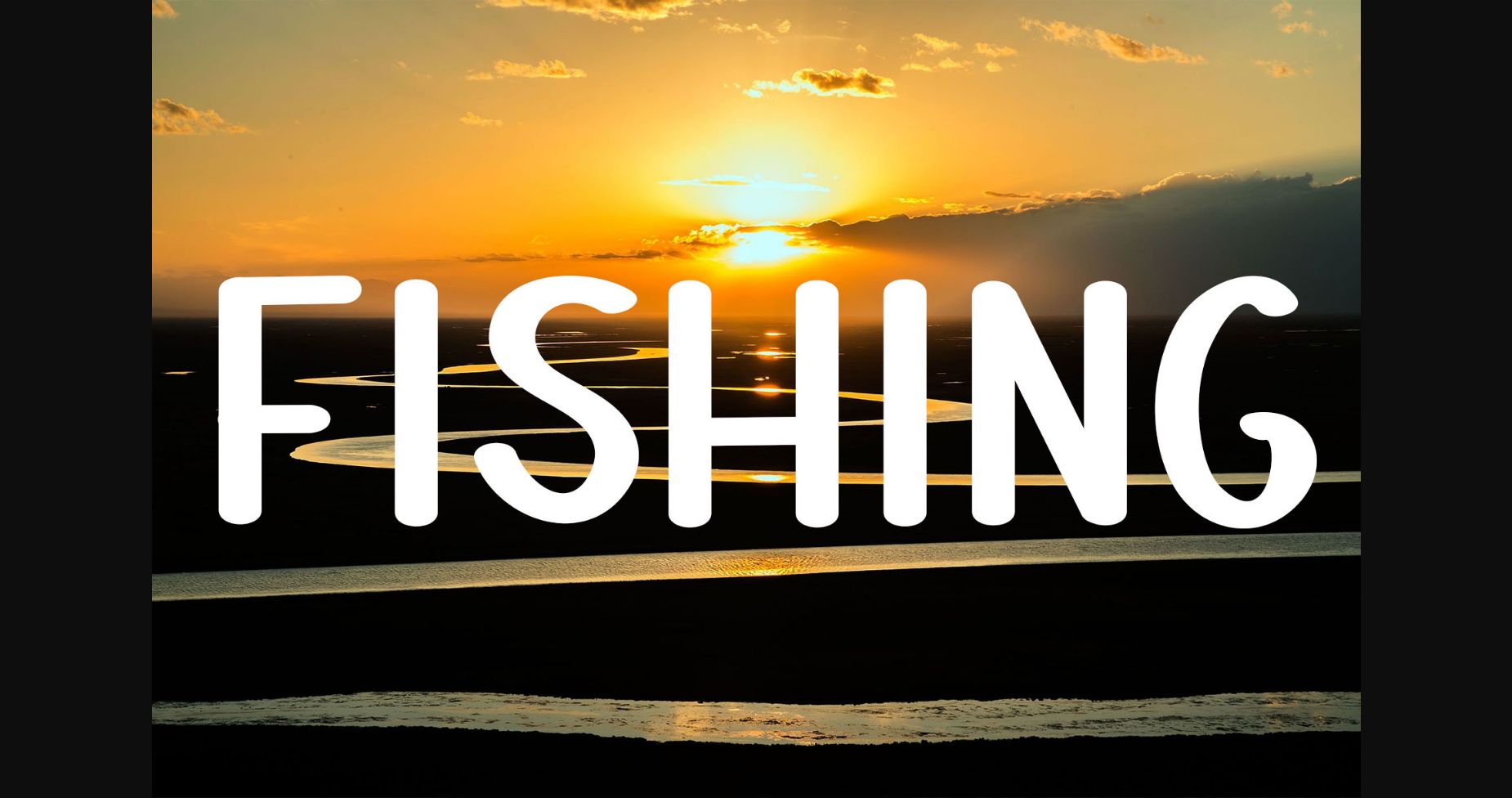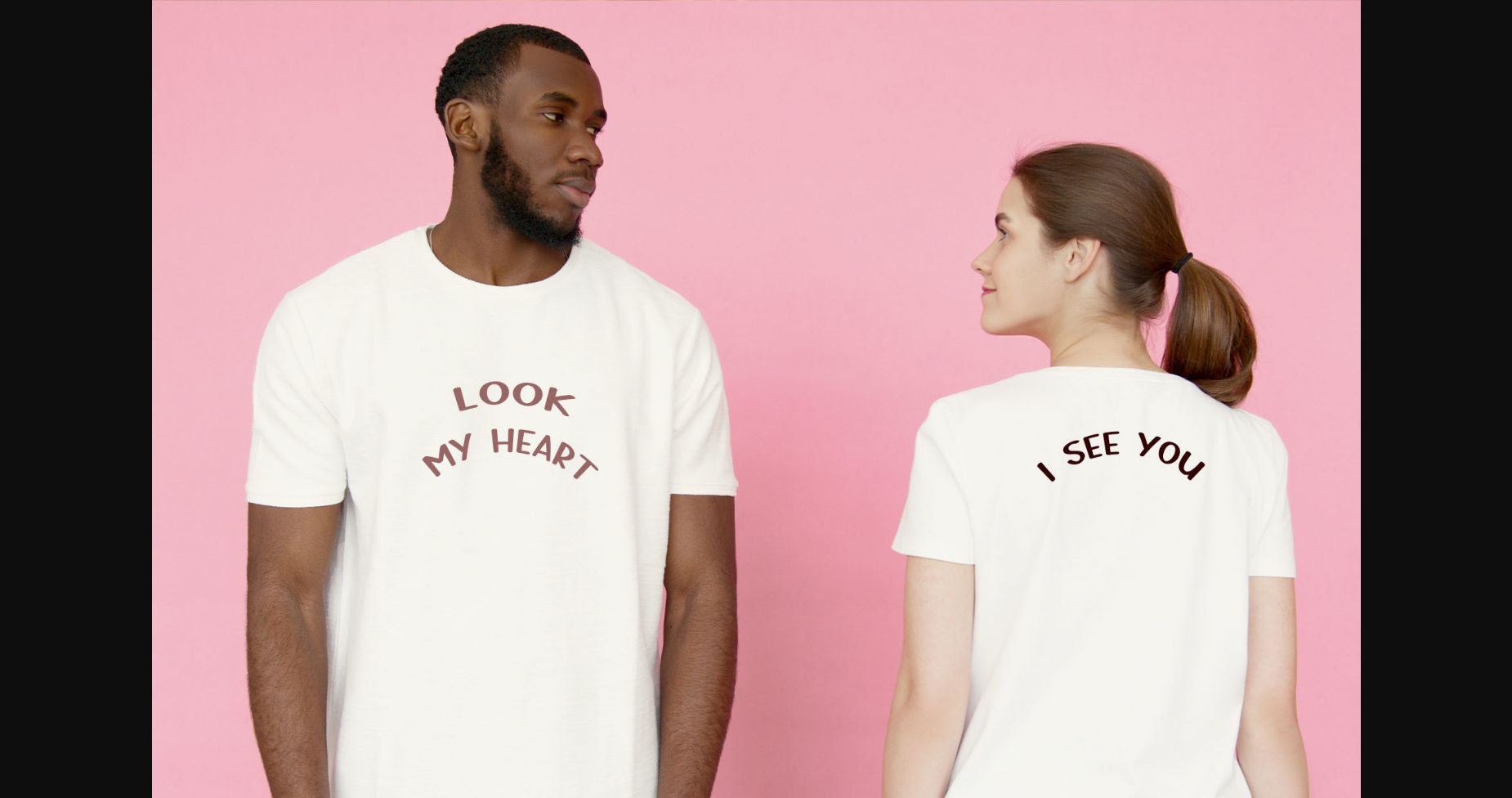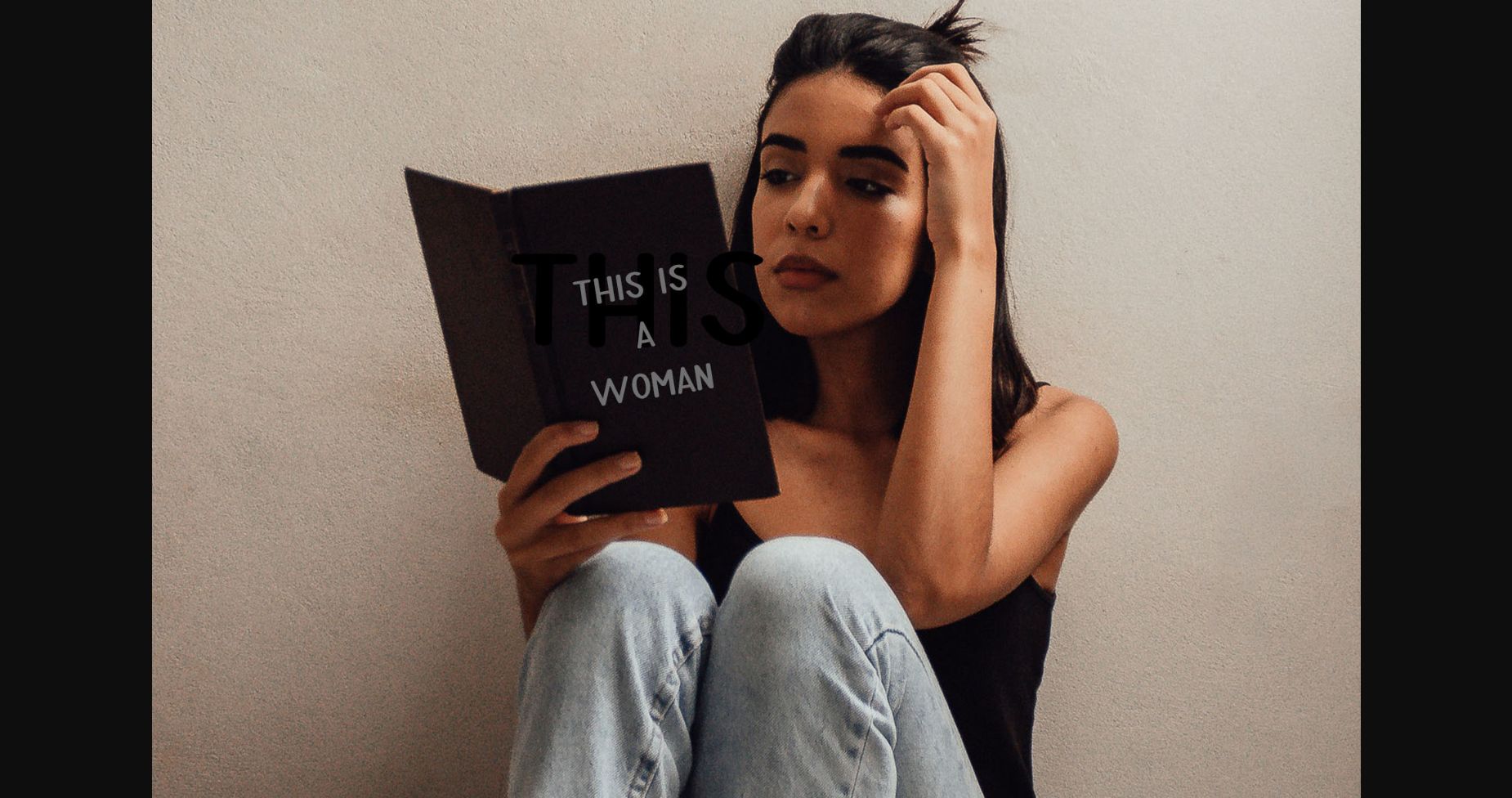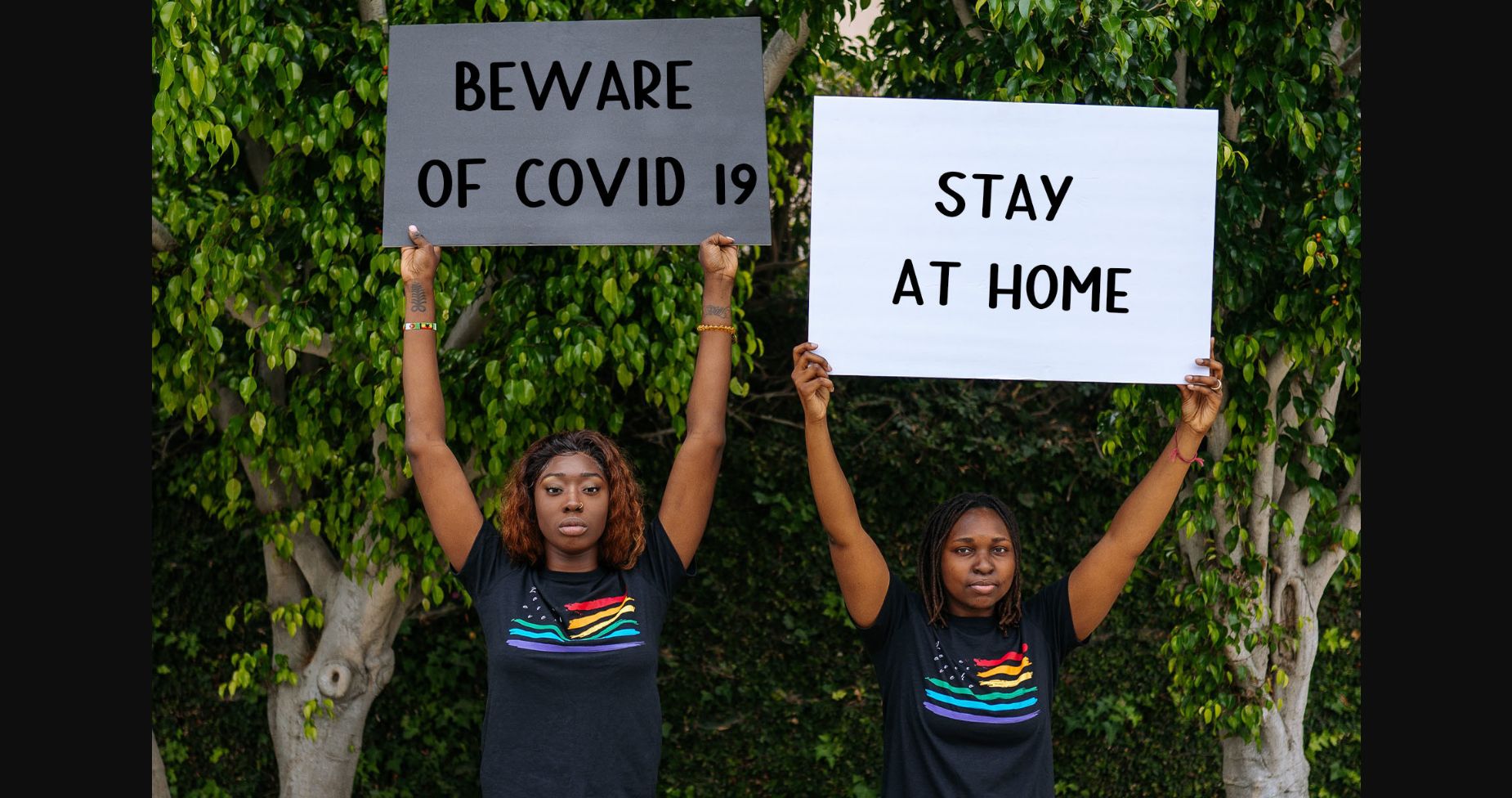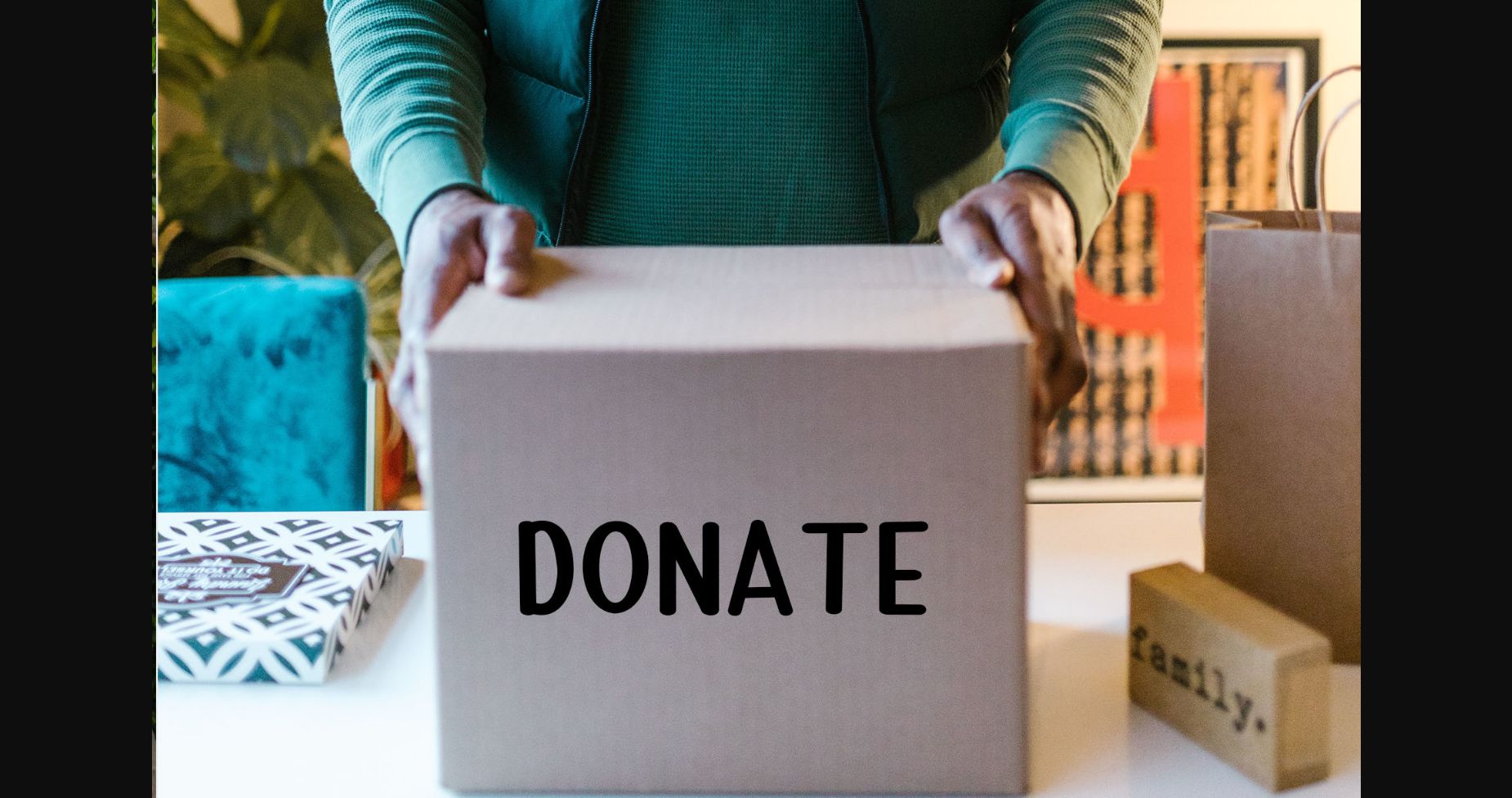
About Fishing Font
Fishing is a simple, thin-case sans serif font. Fall in love with its ravishing style and use it to create gorgeous wedding invitations, beautiful stationary art, engaging social media posts, and more!